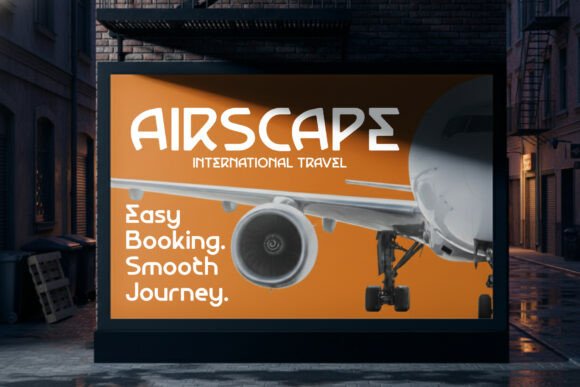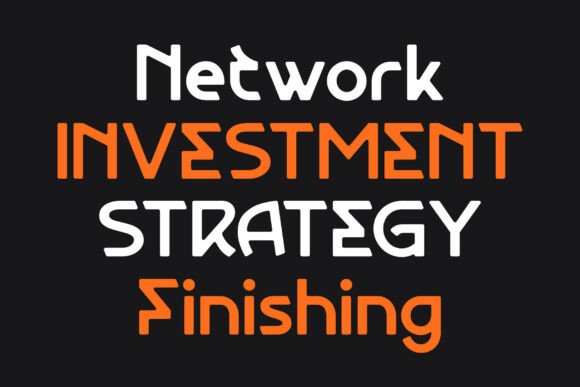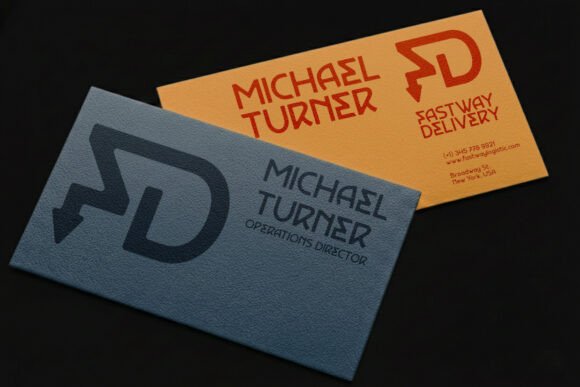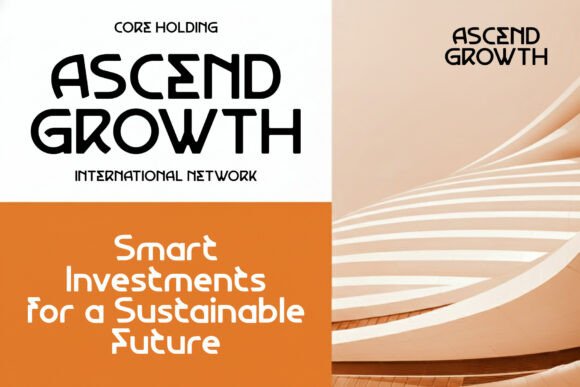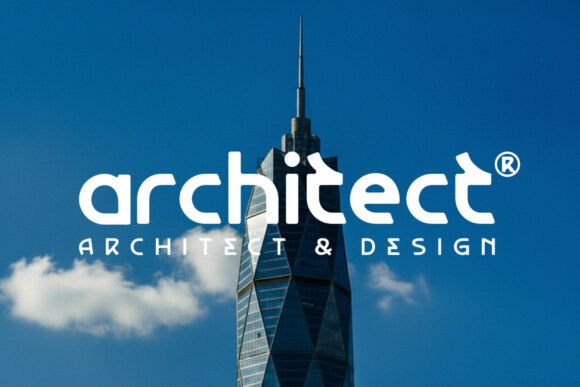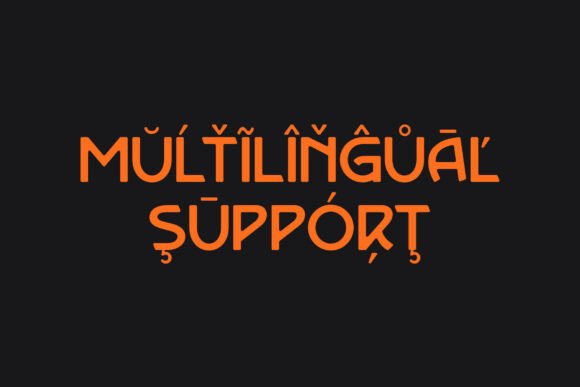
The Frasn Font: Elevate Your Brand with Modern Style
I’ll never forget the struggle of working on a branding project, only to hit a roadblock when it came to finding the perfect font. My client wanted something bold, confident, and contemporary – a visual identity that would set them apart from the competition. That’s when I discovered the Frasn font, a modern and stylish logo font that has since become a staple in my design toolkit.
A First Impression: What Makes Frasn Stand Out
Frasn is more than just a font – it’s a statement piece. With its smooth curves, unique letter shapes, and clean geometry, it’s perfect for brands that want to make a lasting impression. Whether you’re working on a logo, branding, headlines, posters, fashion labels, technology brands, or creative projects, Frasn delivers a strong and memorable typographic presence.
So, what do I love about Frasn? Here are a few highlights:
- ✨ Smooth curves and clean geometry: Frasn’s design is both modern and timeless, making it versatile for various applications.
- ✅ Excellent readability: This font performs exceptionally well in both digital and print applications, ensuring your message is always clear.
- 💡 Unique letter shapes: Frasn’s distinctive character design makes every word look custom and eye-catching.
- 🎨 Customizable: With OpenType features, glyphs, and stylistic alternates, you can tailor Frasn to fit your brand’s personality.
And, like any font, Frasn isn’t without its quirks:
- 🤔 Limited use in body text: While Frasn excels in headlines and logos, it may not be the best choice for lengthy body text due to its bold and stylized nature.
- ⚠️ Requires careful kerning: As with any font, especially those with unique letter shapes, you’ll need to pay attention to kerning to ensure optimal readability.
The Story Behind Frasn: Designer Inspiration
Frasn was crafted with the modern brand in mind. Its designer sought to create a font that would deliver a bold, confident, and contemporary visual identity. Inspired by the latest design trends and a passion for typography, Frasn was born – a font that combines style, versatility, and memorability.
| What makes Frasn suitable for logos and branding? | Frasn’s unique letter shapes, smooth curves, and clean geometry make it perfect for creating a strong and memorable visual identity. |
| Can I use Frasn for body text? | While Frasn excels in headlines and logos, it may not be the best choice for lengthy body text due to its bold and stylized nature. |
| Is Frasn compatible with OpenType features? | Yes, Frasn supports OpenType features, glyphs, and stylistic alternates, allowing for customization and flexibility. |
| Can I use Frasn for both digital and print applications? | Absolutely! Frasn performs exceptionally well in both digital and print applications, ensuring your message looks great across various mediums. |